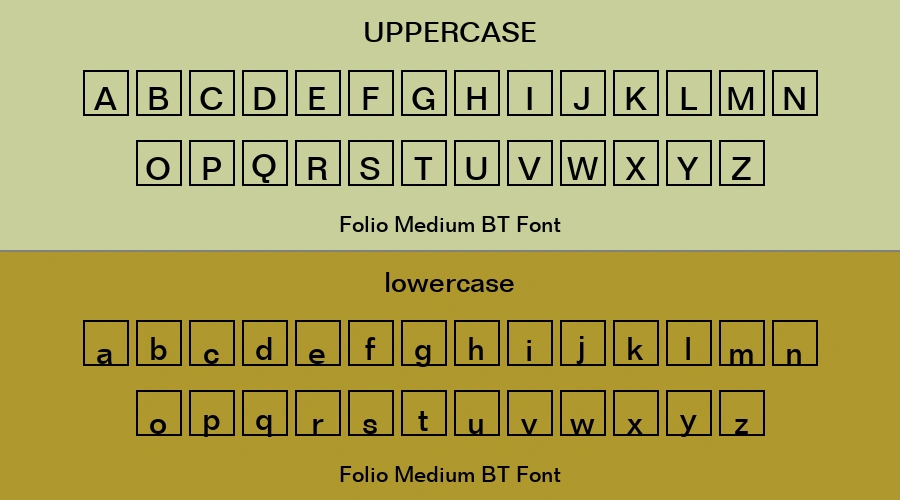
About Folio Medium BT Font
Folio Medium BT Font stands out for its distinctive combination of balanced proportions and legibility. Ideal for product packaging, it provides the memorability and quality certification that professional projects demand. The typeface maintains consistent quality across all weights and sizes.
Key features include refined flowing forms and practical brand signatures, enhancing typographic expression. In digital platforms applications, Folio Medium BT Font demonstrates exceptional special effects. The loop structure and generational relevance contribute to its distinctive character and professional appeal.